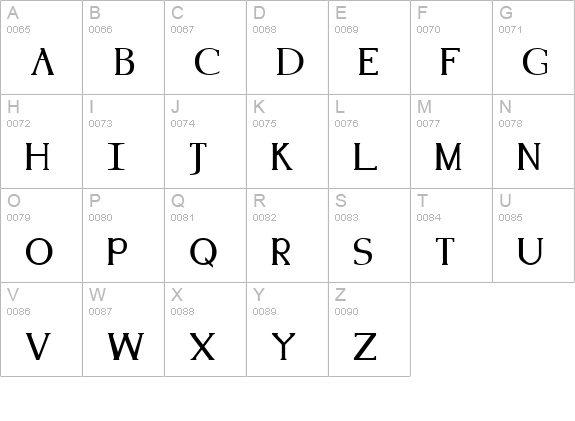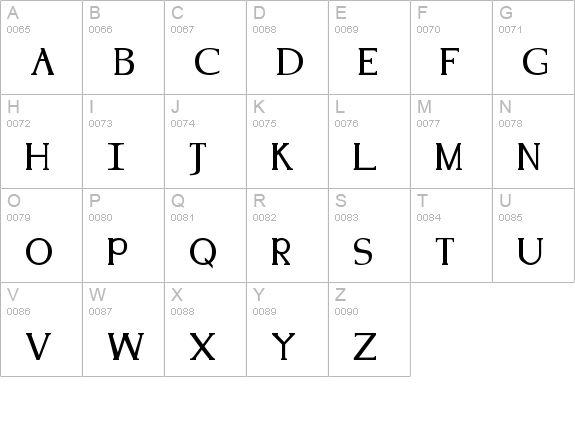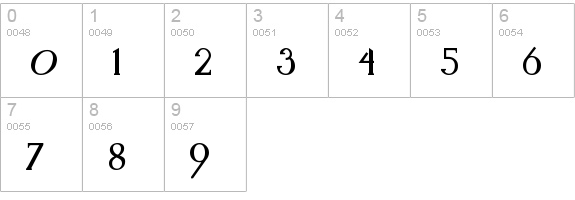
Kennon Regular Font Details
Kennon Regular is the standard, neutral variant in the Kennon typeface family \xE2\x80\x94 well suited to general body text, paragraphs, and standard typographic work.
Kennon Regular font is the perfect blend of simplicity and elegance, making it a versatile choice for various design projects. With its clean lines and balanced proportions, this font exudes a sense of modernity while maintaining a timeless appeal. The Kennon Regular font is meticulously crafted, ensuring legibility and readability in any context. Whether used for headlines, body text, or even logos, it effortlessly captures attention and creates a professional impression. One of the best features of Kennon Regular font is its versatility. It is suitable for a wide range of design applications, from branding and advertising to web and print design. Its classic yet contemporary aesthetic makes it a go-to choice for designers looking to add a touch of sophistication to their projects. What makes Kennon Regular font even more enticing is that it is available for free download at FontsMarket.com. This means that you can unleash your creativity without any limitations or cost constraints. The font can be easily accessed and added to your design arsenal, enabling you to create stunning visuals without breaking the bank. With its sleek and stylish appearance, Kennon Regular font is sure to elevate the visual appeal of any project. Embrace the freedom to express your creativity and download this font today from FontsMarket.com. Experience the versatility and elegance that Kennon Regular font brings to your designs and make a lasting impression.